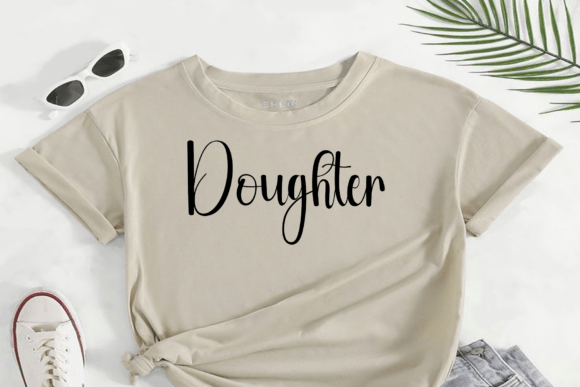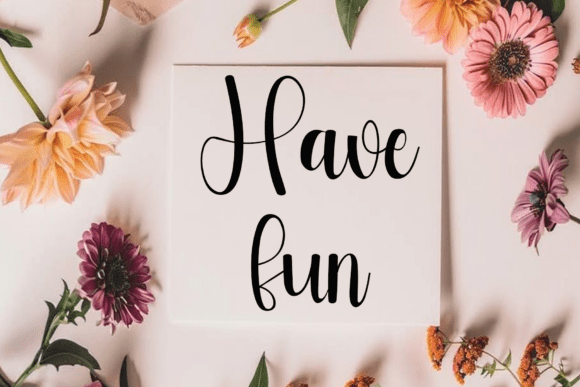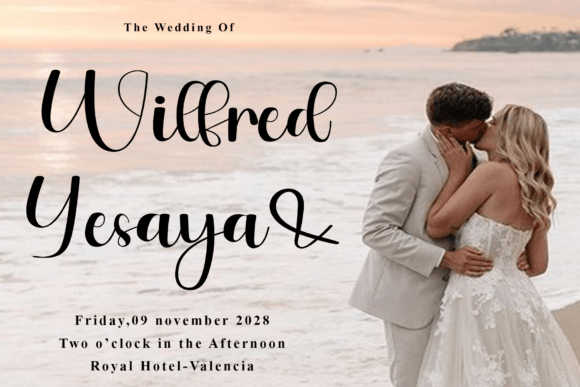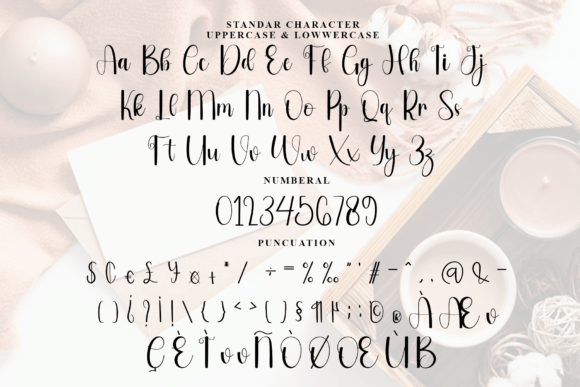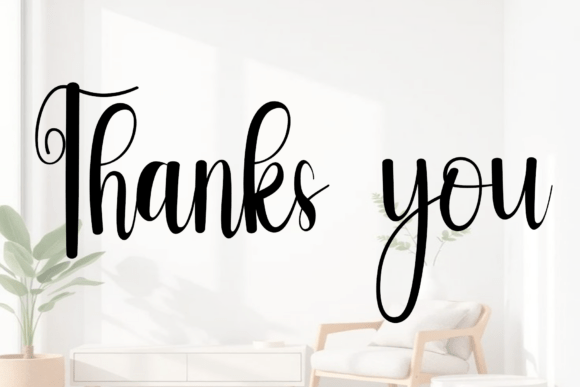
Elevate Your Design with Digital Background Font: The Epitome of Modern Minimalism
In the realm of digital design, the right font can make all the difference. It’s not just about conveying a message; it’s about doing so with style and sophistication. This is where the Digital Background font comes into play, embodying the essence of modern minimalism with its sleek, monolinear handwritten style. This font is not just a typeface; it’s a statement of elegance and professionalism, making it an indispensable tool for designers and crafters alike.
The Characteristics of Digital Background Font
Digital Background, often referred to as a Black Home typeface, boasts tall, slender characters with soft curves that exude both luxury and approachability. This unique combination makes it an excellent choice for a variety of applications, from interior design branding and real estate logos to contemporary lifestyle magazines. The font’s design is a perfect blend of casual handwriting and high-end editorial design, offering a versatile solution for projects that require a touch of sophistication.
One of the standout features of the Digital Background font is its versatility. Its airy and clean nature ensures that it doesn’t overwhelm your layout, making it perfect for various design applications. Here are some of the areas where this font truly shines:
- Product Packaging: Add a touch of elegance to your product packaging with a font that speaks luxury and sophistication.
- Signature-Style Watermarks: Use the Digital Background font to create subtle yet impactful watermarks for your photography or digital artwork.
- Elegant Website Overlays: Enhance the aesthetic appeal of your website with elegant overlays that use this beautiful typeface.
- Personal Branding: Establish a professional and unique identity with a font that bridges casual and formal design elements.
- Luxury Wedding Stationery: Make your wedding stationery stand out with a sophisticated and elegant typeface.
- Editorial Design: Elevate your editorial content with a font that offers both readability and style.
Pairing Suggestions for Maximum Impact
To truly harness the potential of the Digital Background font, consider pairing it with a bold sans-serif typeface. This combination creates a dynamic contrast that looks both unique and professional. The sleek lines of the sans-serif font complement the soft curves of Digital Background, resulting in a visually appealing and balanced design.
Why Choose Digital Background Font?
In a world where design trends are constantly evolving, having a font that can adapt to various styles and applications is invaluable. The Digital Background font offers:
- Professionalism: Its sleek design makes it suitable for projects that demand a high level of professionalism.
- Approachability: The soft curves and slender characters ensure that the font remains approachable and friendly.
- Versatility: From digital designs to print materials, this font adapts seamlessly across different mediums.
The Digital Background font is more than just a typeface; it’s a design solution that caters to the needs of modern designers and crafters. Its unique blend of professionalism and approachability, coupled with its versatility, makes it an essential tool in any designer’s arsenal. Whether you’re working on a luxury brand project, creating elegant wedding stationery, or simply looking to elevate your personal brand, the Digital Background font is your gateway to creating visually stunning and impactful designs.
Embrace the elegance of modern minimalism with the Digital Background font. Explore its potential, experiment with its applications, and discover how this sleek, monolinear handwritten typeface can transform your designs into timeless pieces of art.